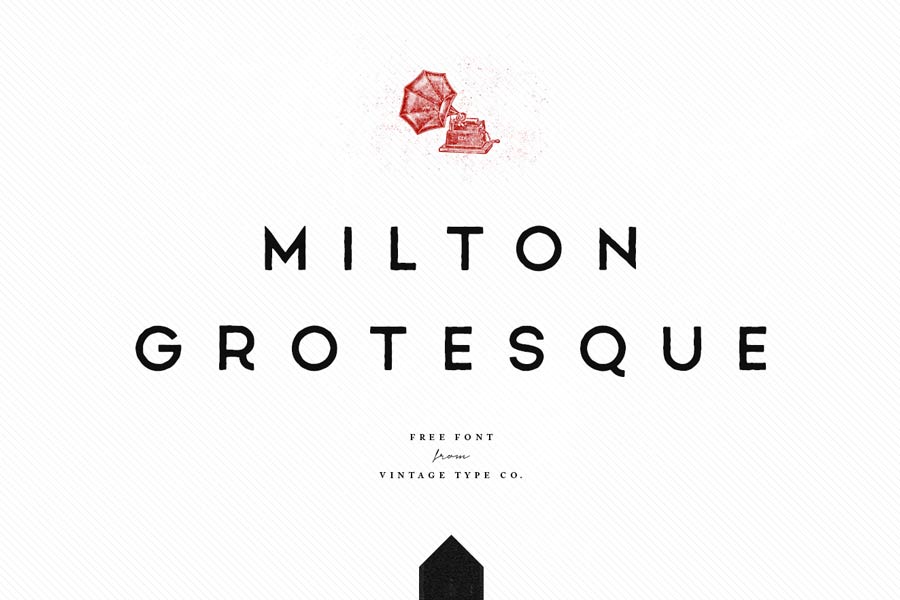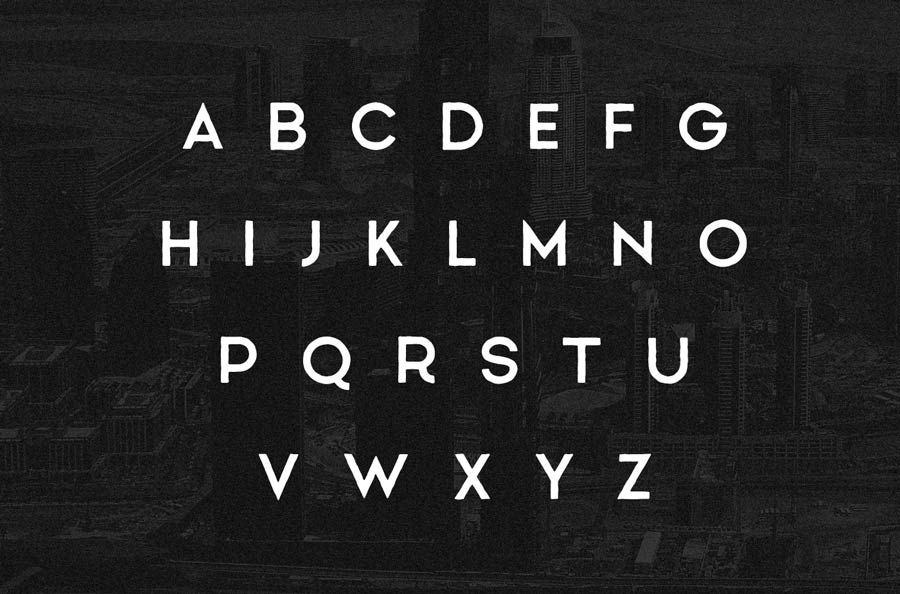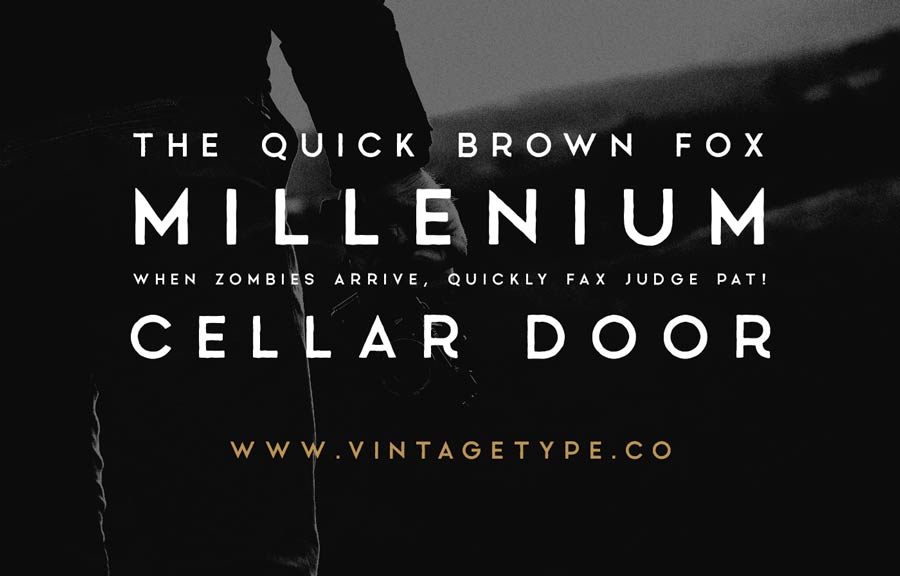
Milton Grotesque is a uppercase-only free sans serif font with rugged finish. This font plays well on logo, wordmark, labels and posters design, and can bring out the feeling of vintage, nostalgic and class.